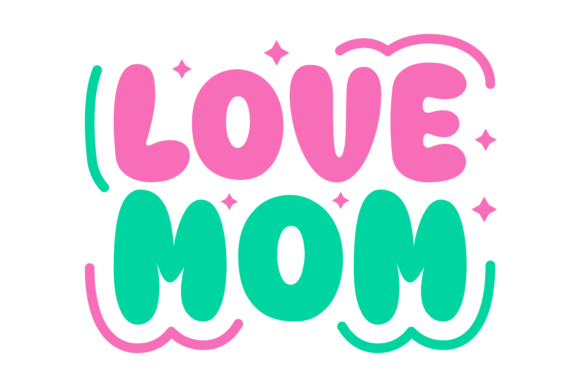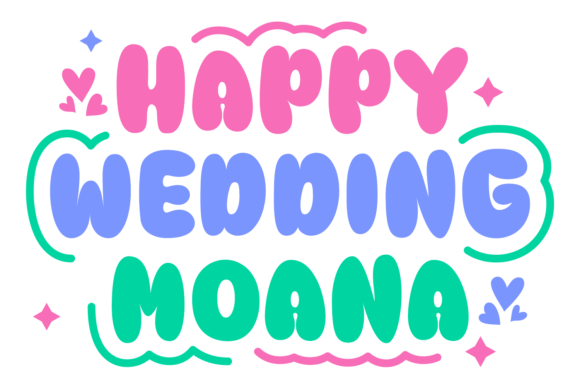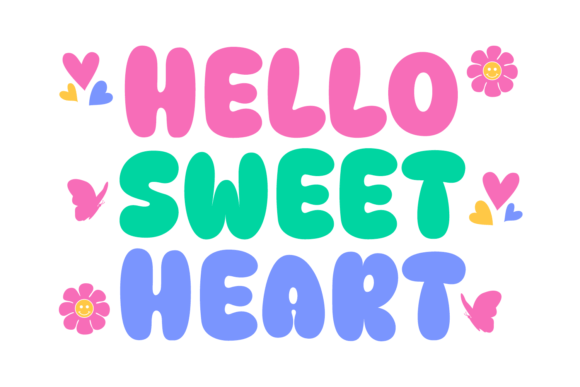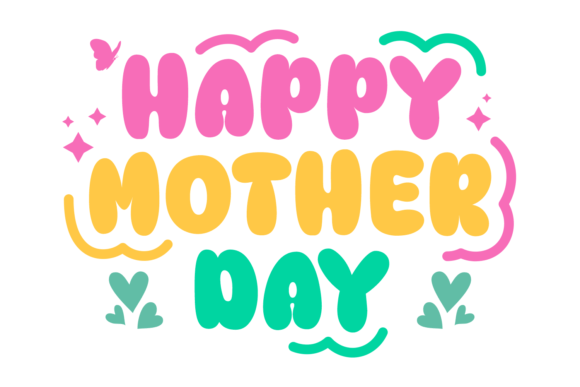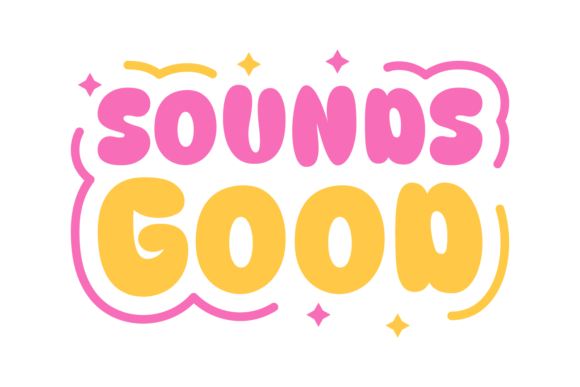
Unleash Your Creativity with the Perfect Font
Have you ever stared at a blank canvas, struggling to bring your design ideas to life? We’ve all been there. It’s that moment when the perfect font can make all the difference. Imagine a font that’s playful, lively, and instantly conveys a sense of fun and excitement.
Meet the Best Home Font, a charming and bubbly typeface that’s perfect for creating eye-catching designs. Whether you’re crafting posters, invitations, or any other project that needs a touch of cheerfulness, this font is sure to deliver. As a designer, you know the value of a versatile font that can elevate your work and make it truly stand out. The Best Home Font is that valuable asset, offering a unique blend of whimsy and sophistication that’s sure to captivate your audience.
Key Features of “Best Home Font”
- Unique Characteristics: The font features a clean, modern aesthetic with a subtle texture, giving it a warm and inviting feel, perfect for home decor and lifestyle branding.
Best Home Font Review
As a designer, I’ve had the chance to try out Best Home Font, and here’s my honest take.
- Legibility is top-notch, making it perfect for body text and paragraphs.
- The font comes in a variety of weights and styles, giving users plenty of options for customization.
- It’s versatile, suitable for both modern and traditional designs.
- Good hinting for a clear and crisp display at various font sizes.
- The font doesn’t have any bold or italic versions, which might limit its use in certain situations.
- The italic slant can be a bit too pronounced, making it difficult to read in some cases.
Overall, Best Home Font is a solid choice for general use, but it may not be the best fit for specific projects that require bold or italic text. As a designer, I’d use it for body text, headings, and titles, but might opt for a different font for emphasis or highlighting.
Best Home Font: A Practical Application Guide
Use the Best Home Font for:
- Home decor and furniture designs
- Food and recipe labels
- Personalized gift tags and cards
For the best results, use the Best Home Font in combination with high-quality images and design elements.
Alternatives to Best Home Font
Playfair Display is a luxurious and elegant script font. It’s ideal for use in titles, headings, and other text elements where you want to add a touch of sophistication and refinement. Unlike Best Home Font, which has a more classic and traditional feel, Playfair Display is more modern and stylish, making it perfect for high-end branding and design projects.
Merriweather is a classic serif font with a timeless and elegant feel. It’s suitable for use in body text, headings, and titles where you want to convey a sense of tradition and sophistication. Compared to Best Home Font, Merriweather has a more formal and serious tone, making it ideal for use in corporate, academic, and professional settings.